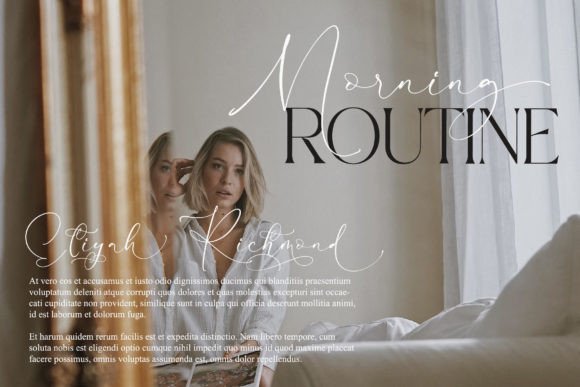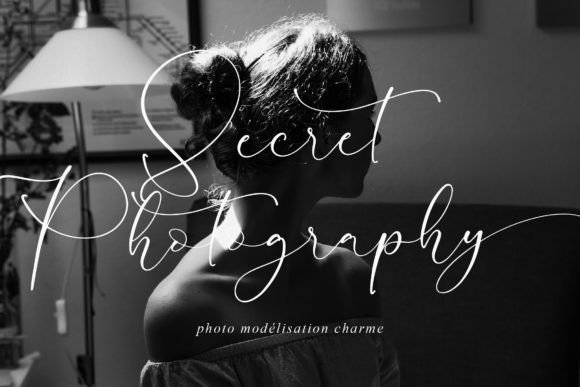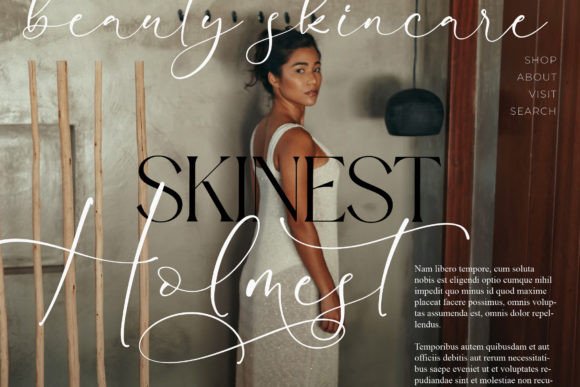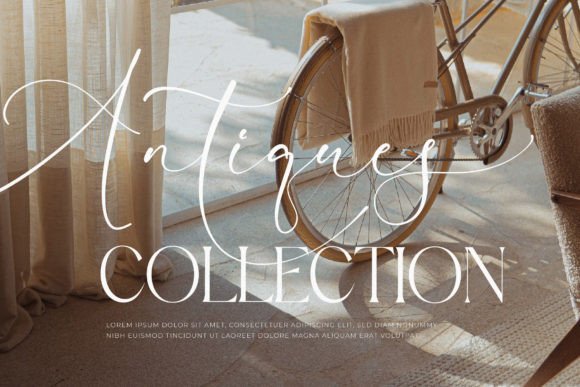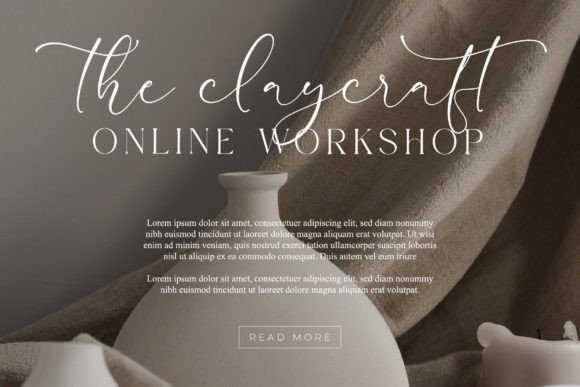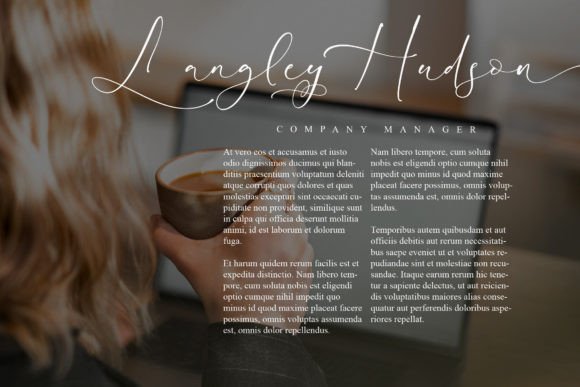
Introduction to Magistica Herimattos Font
Magistica Herimattos is a luxurious script font featuring a unique style and modern look.
This typeface is perfect for an elegant & luxury logo, book or movie title design, fashion brand, magazine, clothes, lettering, quotes, and so much more .
Key Features of Magistica Herimattos Font